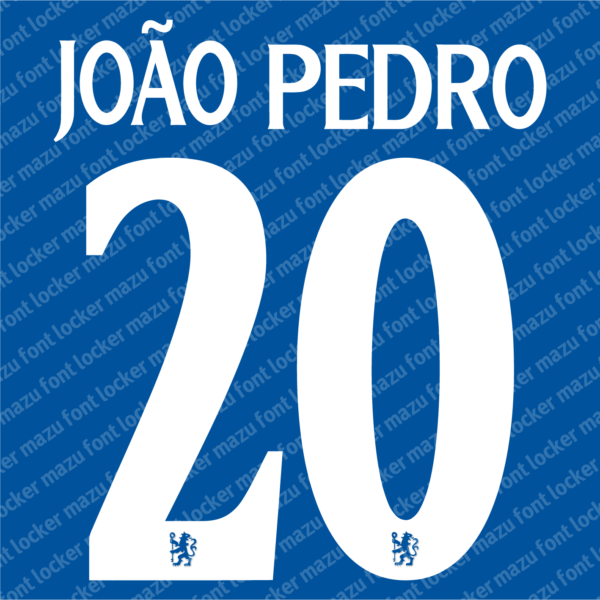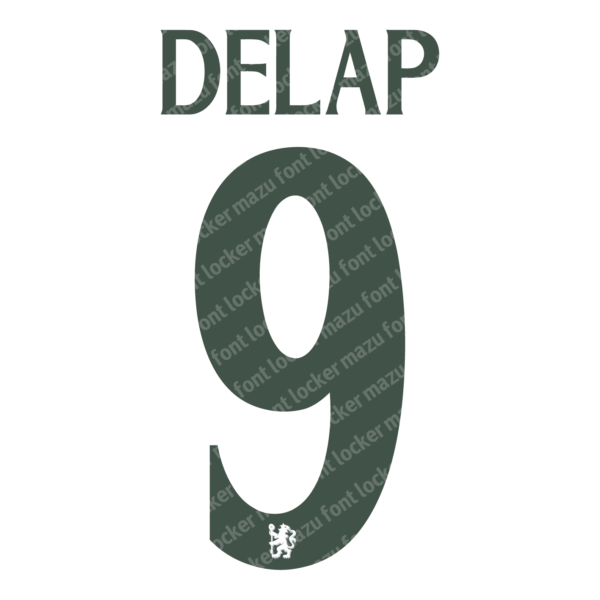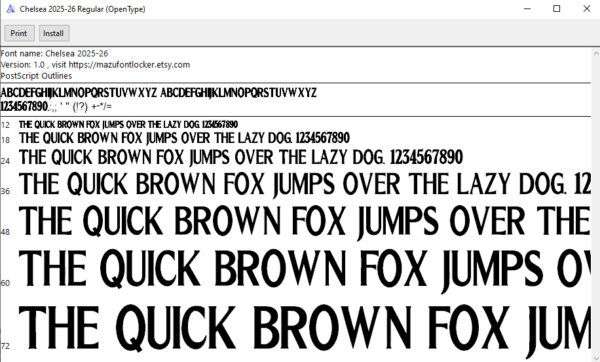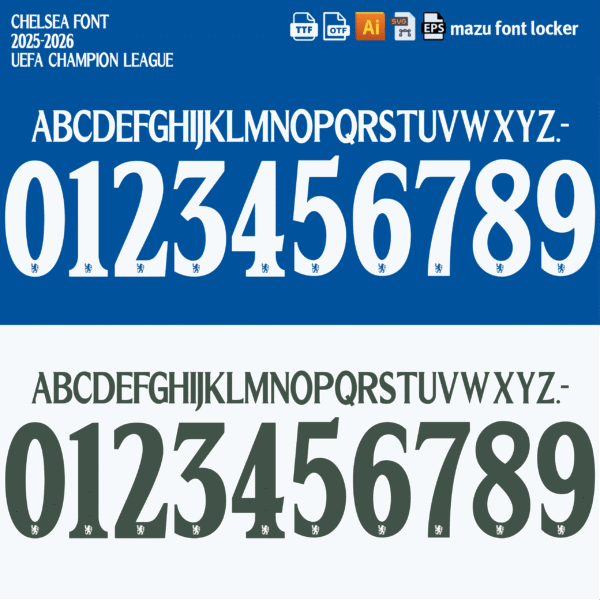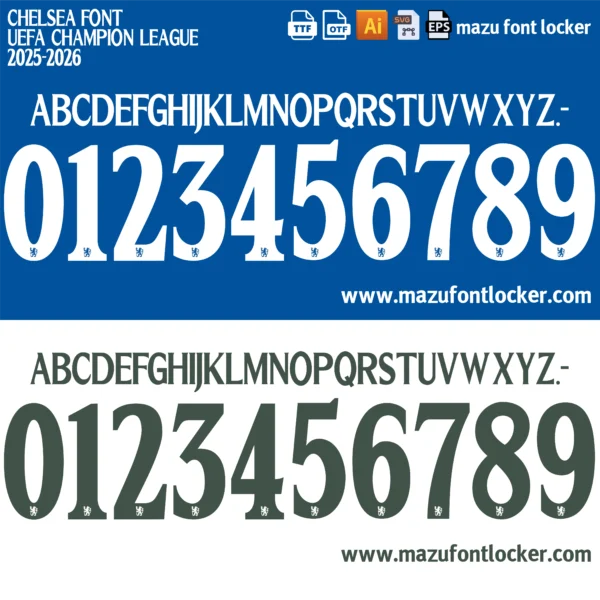
Chelsea 2025-2026 Font Vector – Spectacular Iconic Blue Brigade Edition
Channeling the proud Chelsea spirit and Stamford Bridge legacy, it features the powerful, clean style worn during their exciting campaign. Perfect for premium jersey mockups, football designs, and passionate Chelsea art.
Chelsea 2025-2026 Font Vector – Authentic Blues Typeface
The Chelsea 2025-2026 Font Vector is a premium typeface that accurately replicates the official match lettering used by Chelsea FC during the 2025-2026 season. This high-quality vector font kit captures the sleek, modern, and commanding style that defines one of England’s biggest and most successful clubs.
Designed for professional designers and loyal Chelsea fans, the Chelsea 2025-2026 Font Vector offers perfect authenticity for realistic jersey mockups, supporter merchandise, matchday posters, social media graphics, and premium creative projects. It integrates seamlessly with the club’s iconic blue kits.
Why Choose Chelsea 2025-2026 Font Vector
This font is celebrated for its sharpness and premium quality. Each letter and number has been precisely recreated to match the exact typography featured on the players’ shirts throughout the 2025-2026 Premier League and European campaign. It brings the true Stamford Bridge identity to every design.
The letterforms in the Chelsea 2025-2026 Font Vector are bold, refined, and highly legible with clean contours and balanced proportions. The typeface delivers strong visual presence while maintaining the elegance expected from a top European club.
The numerals showcase athletic structure, solid weight, and sharp detailing that ensures they command attention on the back of jerseys and perform flawlessly across all print and digital applications.
• Full uppercase A–Z and numbers 0–9 in authentic Chelsea 2025-2026 style
• Special Chelsea FC crest glyph for accurate shirt number detailing
The Chelsea 2025-2026 Font Vector is an independently designed typeface package. It is carefully crafted to replicate the official shirt lettering style of the 2025-2026 season. This font kit is perfect for creative projects, fan edits, and high-quality football graphics.